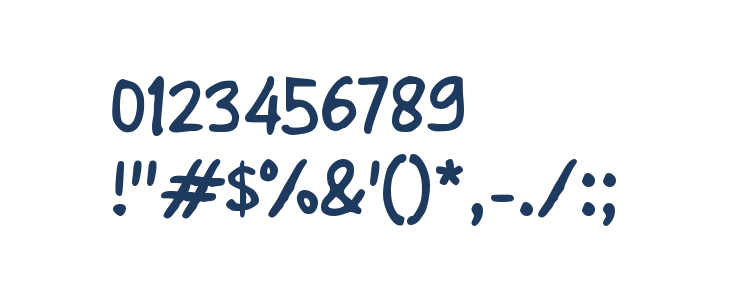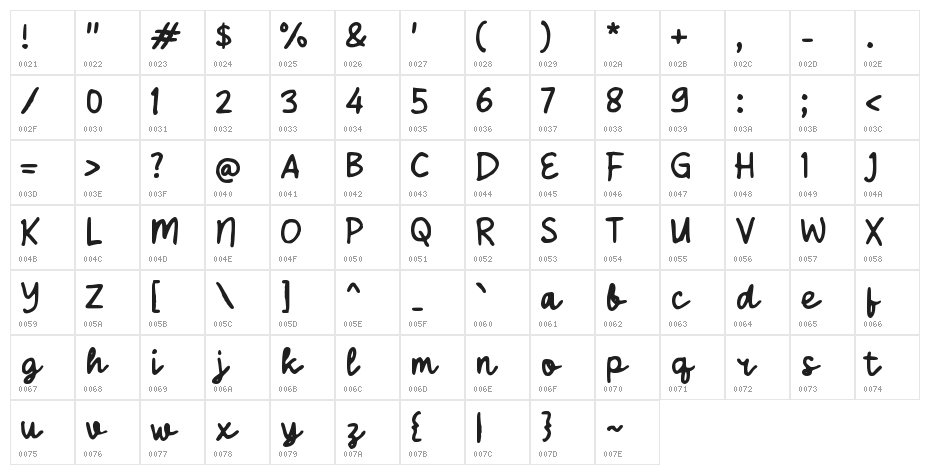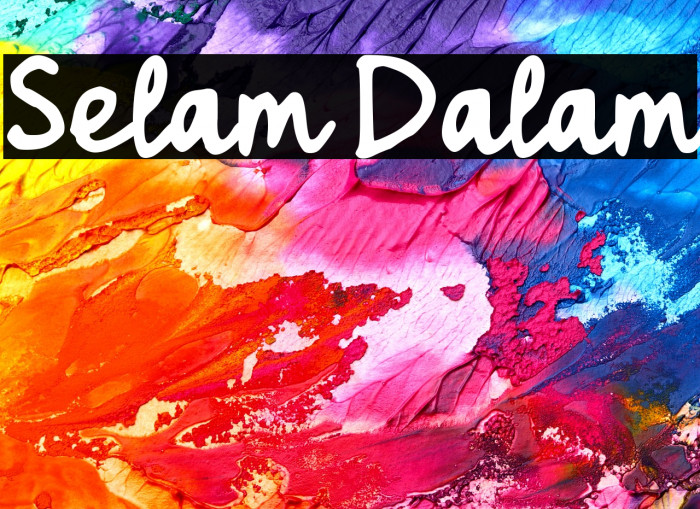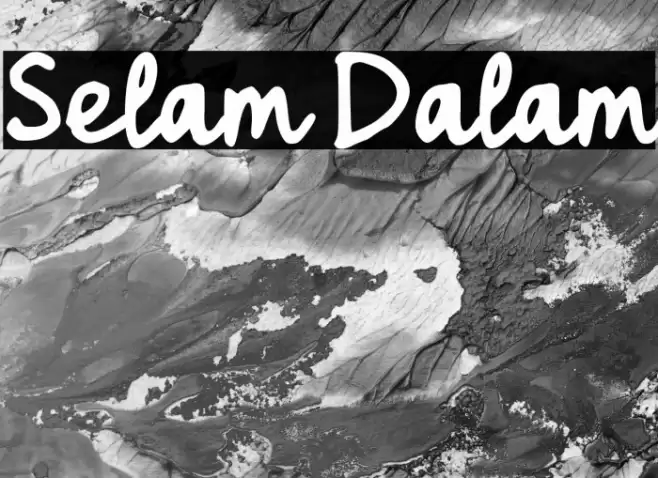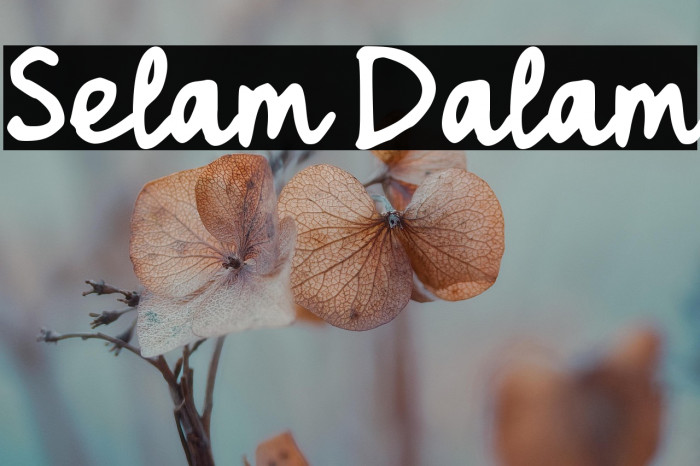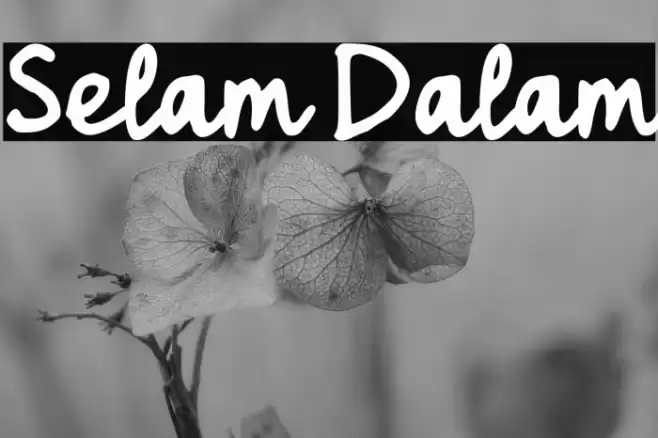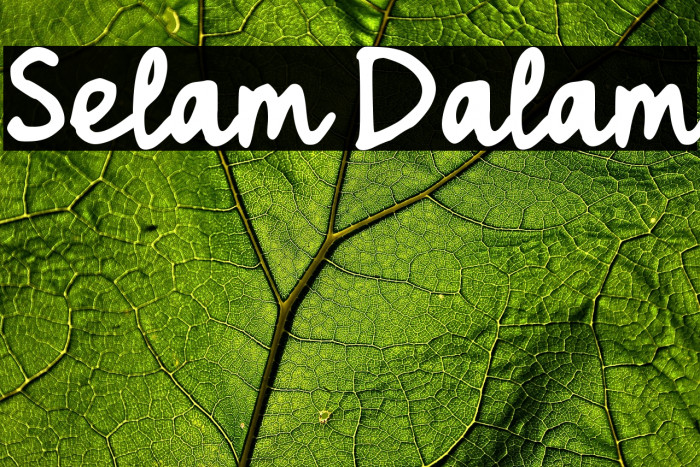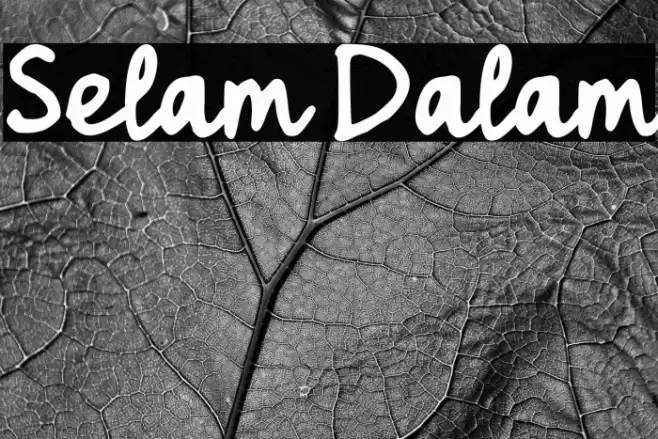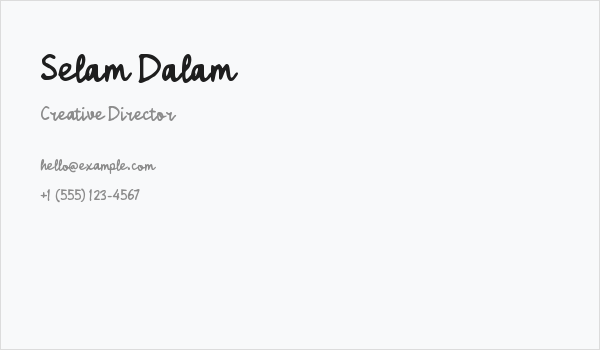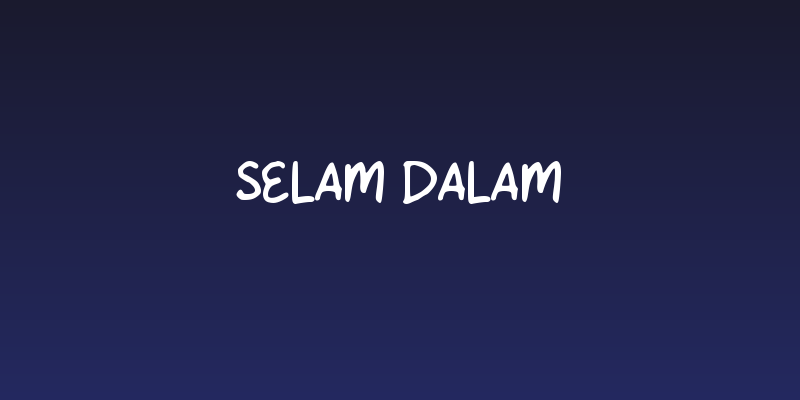
Selam Dalam Font
Selam Dalam Description
A playful, handwritten style font with rounded, casual letterforms that resemble a marker or brush pen. The characters are slightly irregular, giving it a friendly and informal appearance.
| Overall Style | Casual, Playful, Friendly |
| Use Case | Headlines, Body text, Logos, Invitations |